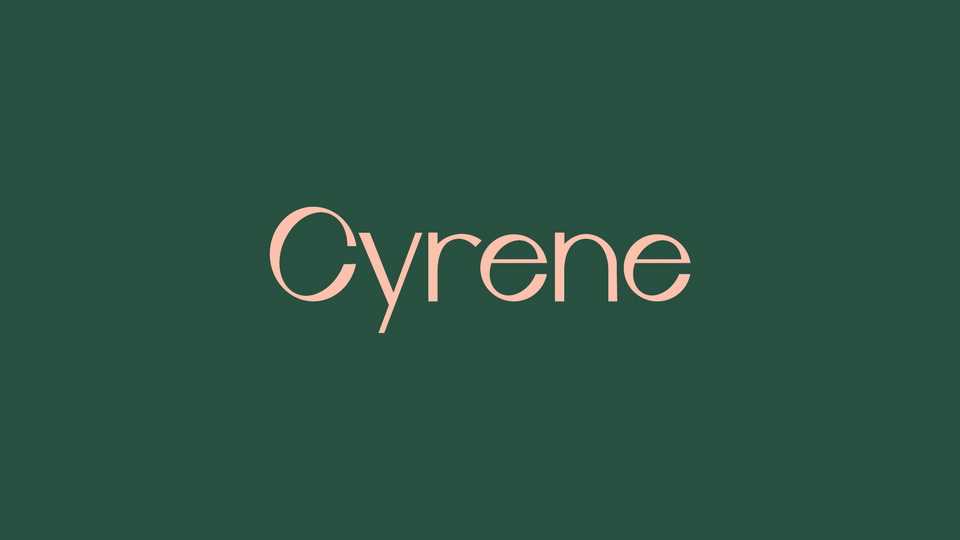
Download Cyrene font, an amazing sans serif typeface with a touch of elegance in its unique style of modern reverse-contrast classics. Cyrene is a free typeface realized by Agostinelli Riccardo.
Designer: Riccardo Agostinelli